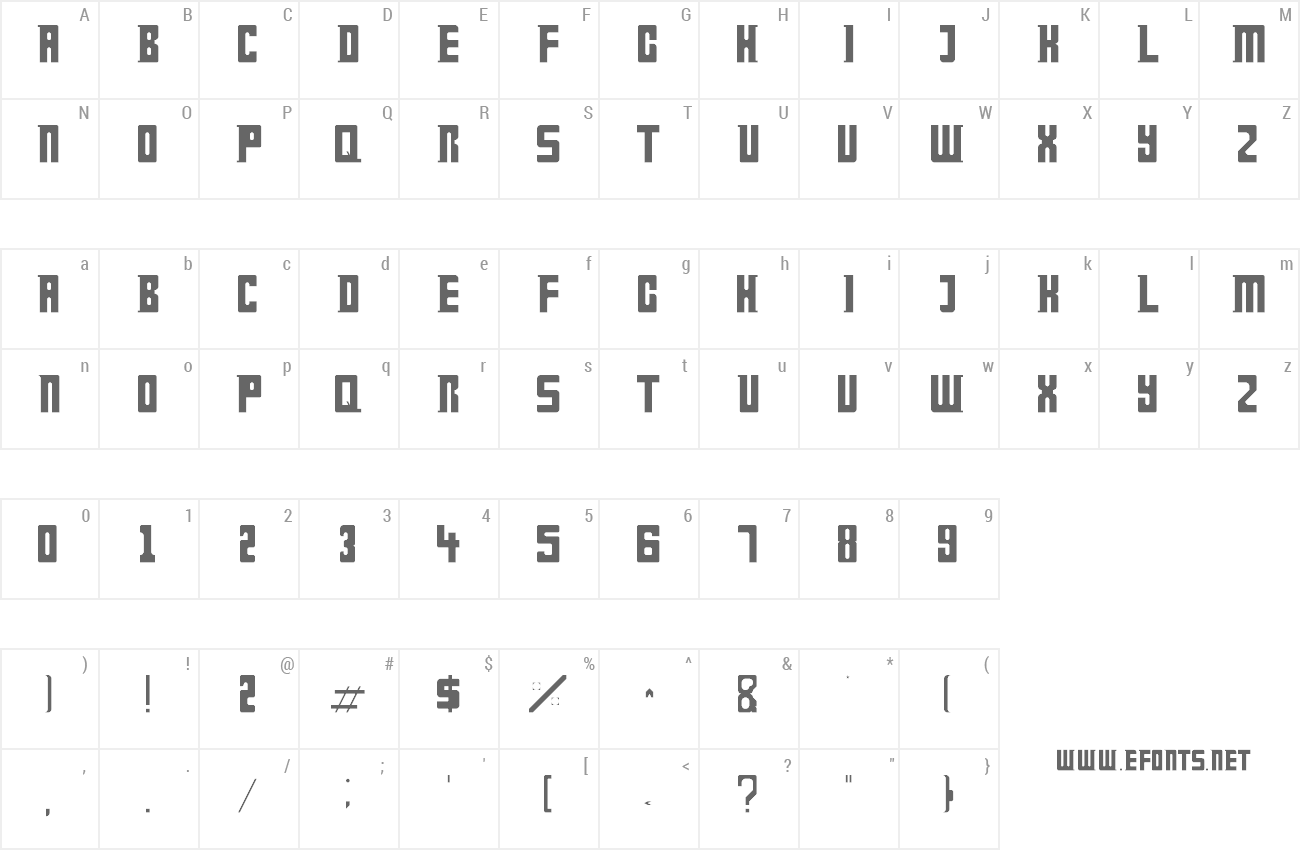
| Font name: | Doctor Who |
#########NOTICE TO ALL######### Please donate to keep this font available and free. It would also help me to make more :-) #########UPDATED 29/10/2013 22:58 GMT######### This Font Is A Recreation Of The Doctor Who Logo Font. The Image Was Created By Using The Font. |